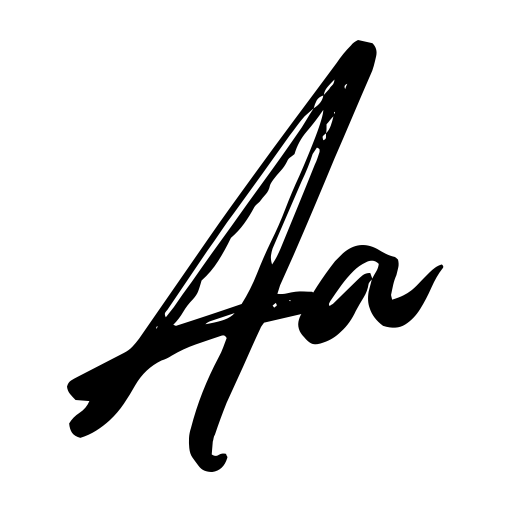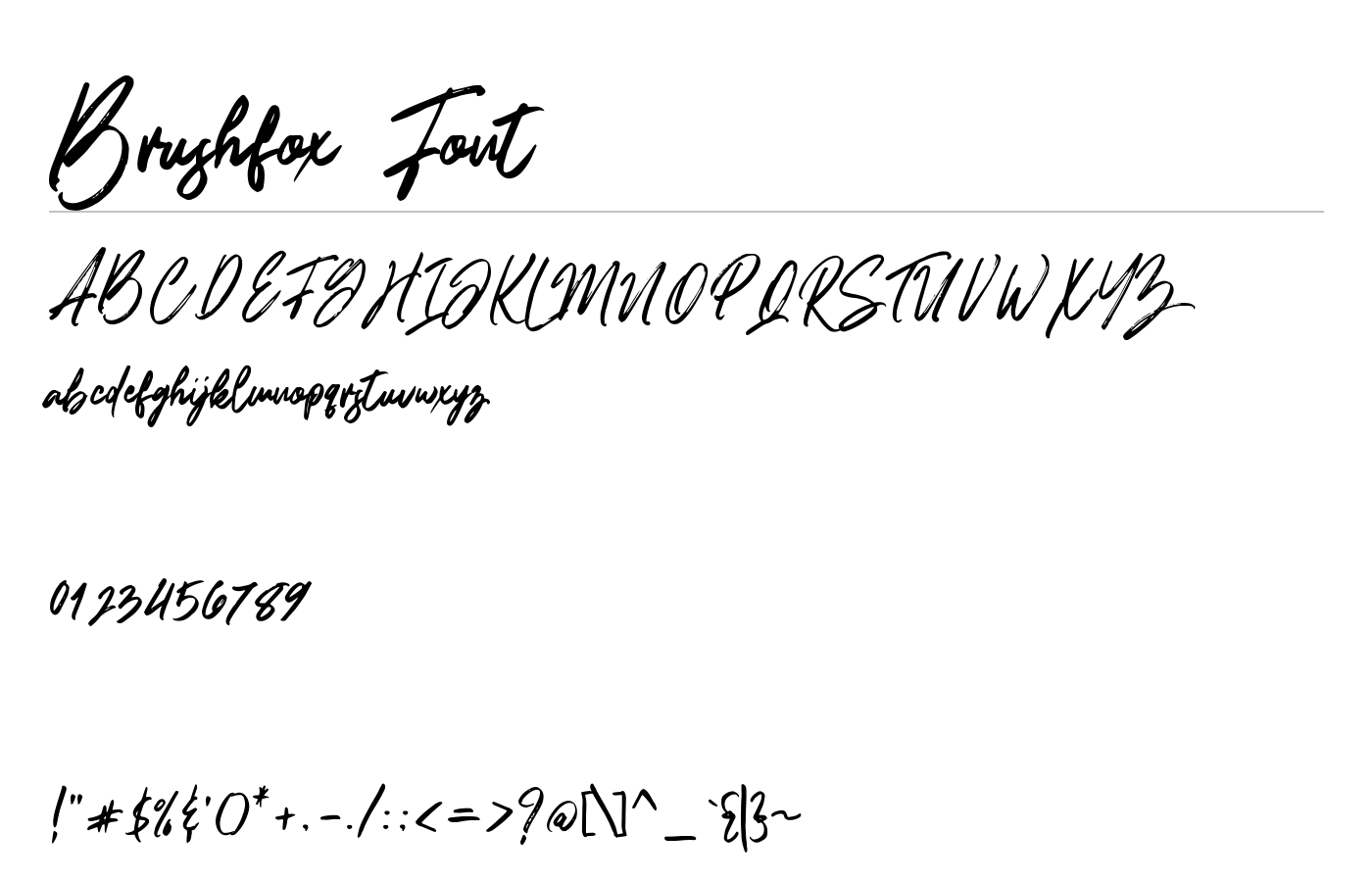
Brushfox is an expressive handwritten script font with a lively, natural brushstroke style that feels casual yet artistic. Its varied stroke thicknesses and dynamic letterforms give it a personal, elegant touch perfect for creative projects, branding, and headlines that want to convey warmth and individuality. This font works beautifully in logos, invitations, and packaging where a handcrafted, stylish vibe is desired.
Brushfox Font